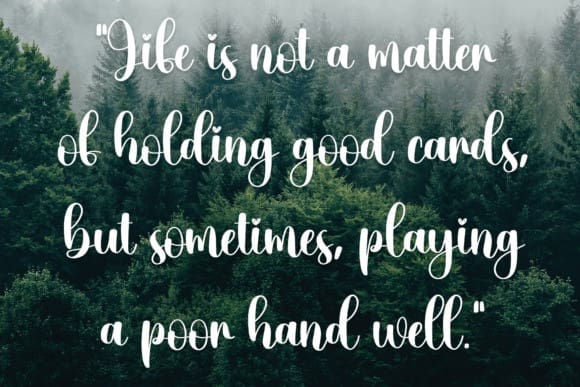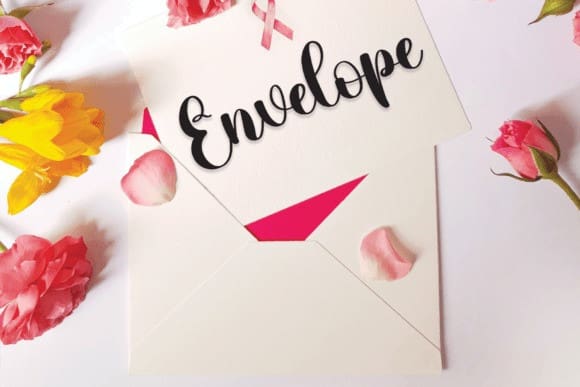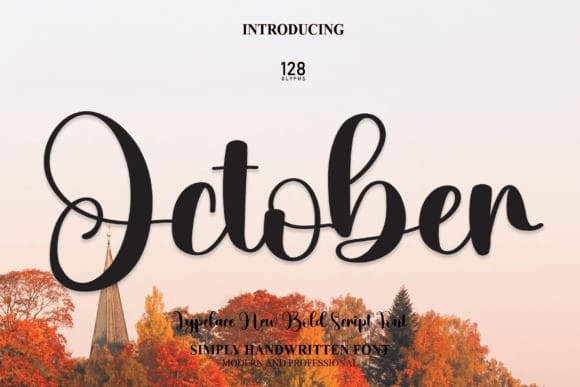
October Script Font
October Script Font is a cute and cozy handwritten script font. With a sweet, lovely vibe, this font is perfect for all your projects that need a romantic touch.